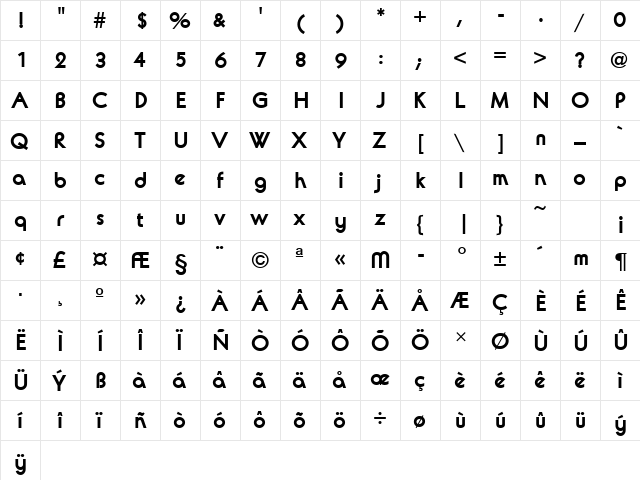
AvalonURWTBol Regular Font Preview
AvalonURWTBol Regular
Design Context for AvalonURWTBol Typeface
AvalonURWTBol takes a measured approach to typography — its balanced proportions and neutral character make it a reliable workhorse for both digital and print work.